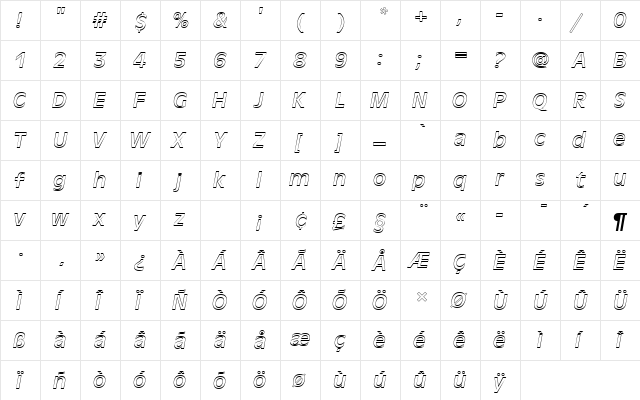
AntiqueOliTRegItaOu1 Regular
Design Context for AntiqueOliTRegItaOu1 Typeface
AntiqueOliTRegItaOu1 wears its vintage influences proudly, with letterforms that recall mid-century signage, classic packaging, and nostalgia-driven design.
Ideal for diner signage, record shop branding, 70s/80s-themed projects, and heritage product labels.
Font Pairing: Combine AntiqueOliTRegItaOu1 with a simple slab or neutral sans — period-accurate companions reinforce the vintage feel without competing for attention.
Pro Tip: Lean into AntiqueOliTRegItaOu1's period character by pairing it with aged paper textures, muted colour palettes, and vintage illustration styles.